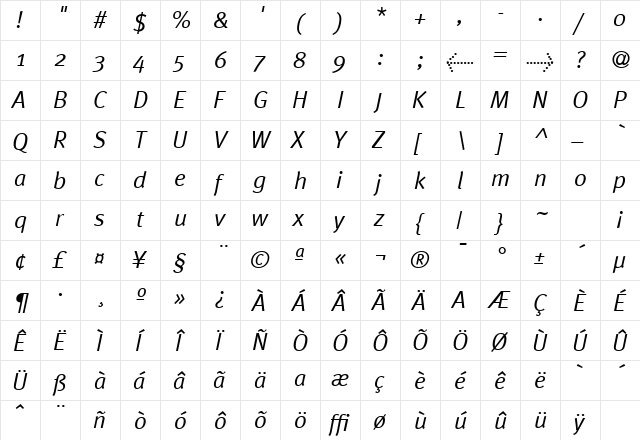
MetaPlusNormal Italic
Design Context for MetaPlusNormal Typeface
MetaPlusNormal offers clean, dependable letterforms without strong stylistic allegiance, making it a practical choice for designers who need flexibility. The slanted form adds forward momentum and visual energy.